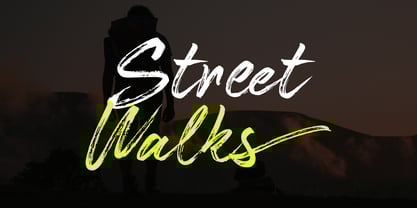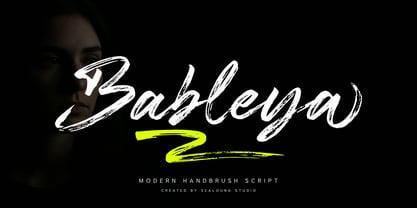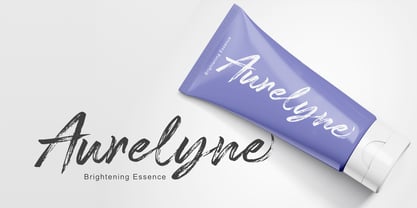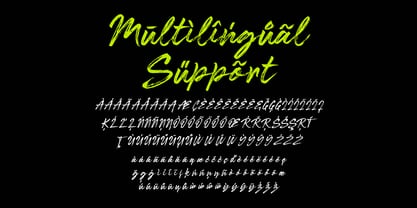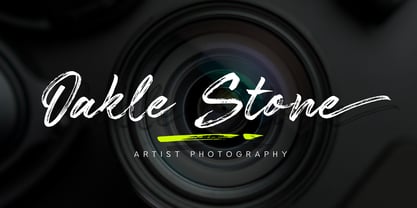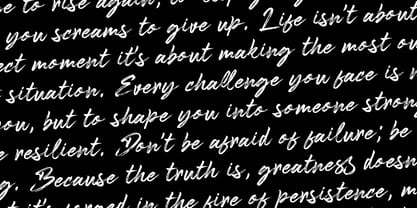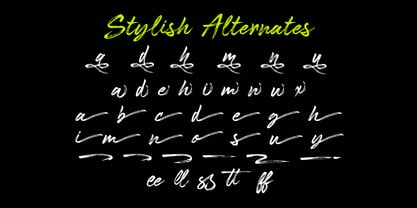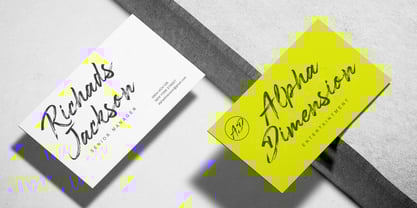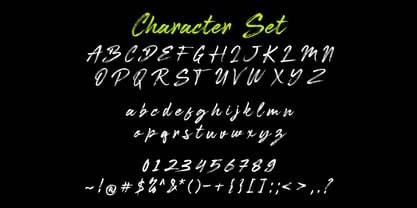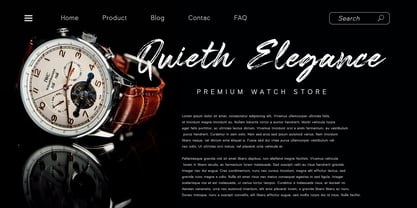
Bableya
Bableya is a stylish modern brush font with charming details. Its brush strokes bring a friendly and engaging feel, making it a great choice to elevate your design projects.
Bableya is perfect for branding, logos, wedding invitations, social media content, advertising, product packaging, product design, labels, photography, watermarks, stationery, and any project that needs a handwritten touch.
• A wide range of glyphs
• Ligatures & alternates
• Multilingual support including: Afrikaans, Albanian, Czech, Danish, Dutch, English, Estonian, Finnish, French, German, Hungarian, Italian, Latvian, Lithuanian, Norwegian, Polish, Portuguese, Slovak, Slovenian, Spanish, Swedish.